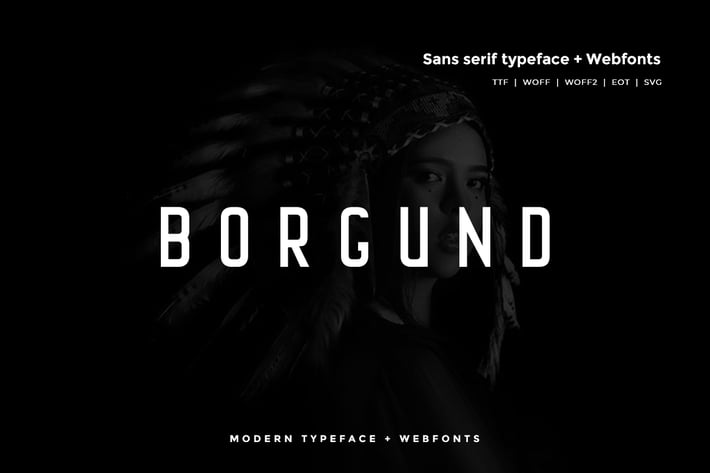
Borgund - Modern Typeface + WebFont
Borgund Sans Typeface
Borgund Sans is a modern and Minimal Sans Serif typeface, Borgund Sans can keep the minimalism at its level best and is a Perfect choice for Creative and Classic Typography Designs.